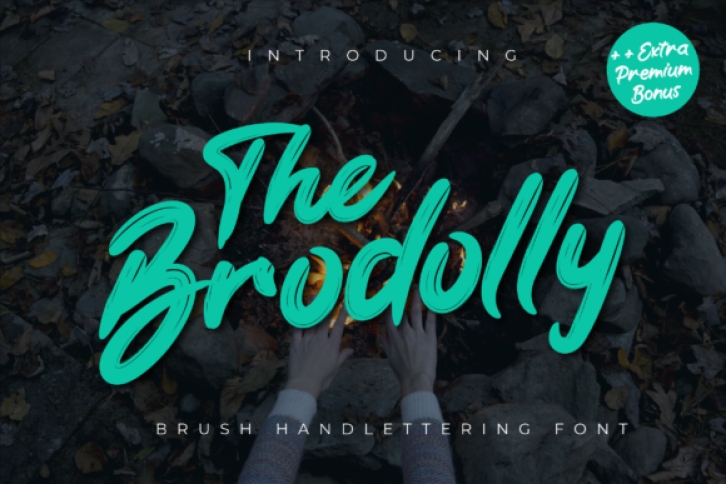
The Brodolly is a magical display font carefully designed with a touch of creativity. Whether you’re looking for fonts for Instagram or calligraphy scripts for DIY projects, this font will turn any creative idea into a true piece of art!